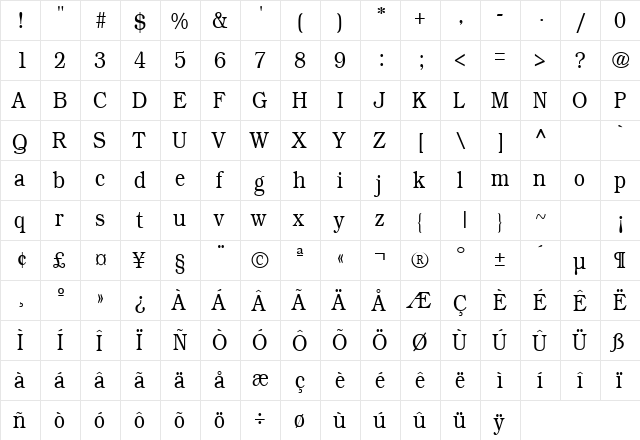
BookmanLightCondensed Regular Font Preview
BookmanLightCondensed Regular
Design Context for BookmanLightCondensed Typeface
BookmanLightCondensed offers clean, dependable letterforms without strong stylistic allegiance, making it a practical choice for designers who need flexibility. The delicate stroke weight brings airiness and refinement to layouts. The condensed width makes it efficient for tight spaces without sacrificing legibility.